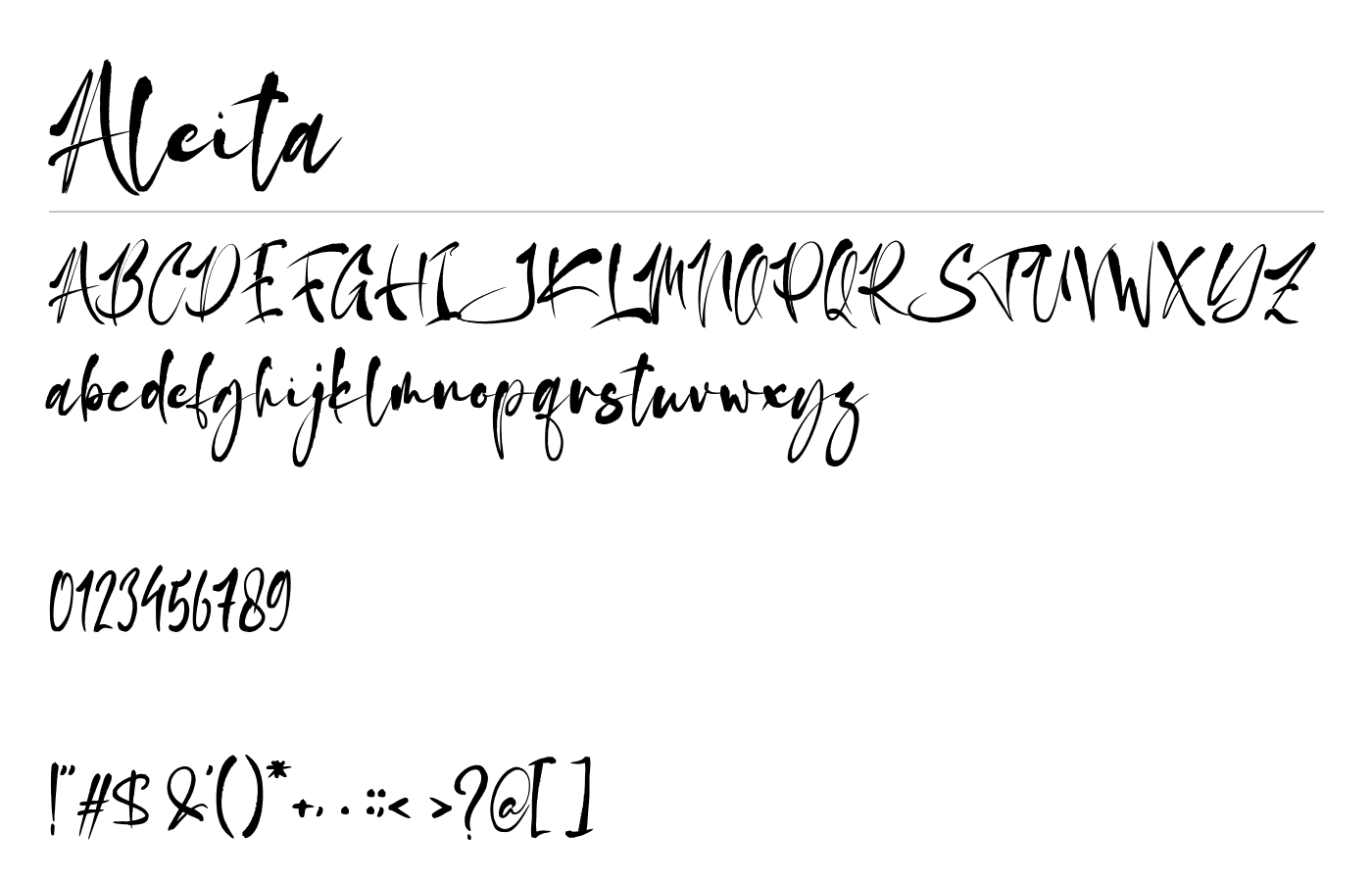
Aleita is a lively and expressive handwritten script font that features elegant, fluid strokes with varying thickness, giving it a dynamic and artistic feel. Its tall, narrow letterforms and natural brush-like texture make it perfect for creative and personal projects, adding a touch of sophistication and warmth. Ideal for branding, invitations, and editorial designs, Aleita brings a modern yet heartfelt personality to any layout.
Aleita Font